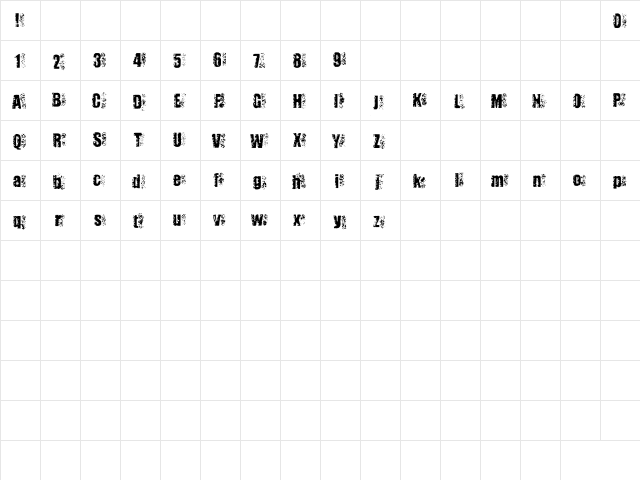
stamped out Regular
Design Context for stamped out Typeface
stamped out has the rough pragmatism of spray-painted stencil signage, adding a raw, street-level authenticity to designs.
A strong choice for packaging that needs edge, warehouse aesthetics, and rough-and-ready visual identities.
Pro Tip: Use stamped out at large sizes on packaging, posters, or apparel where the stencil cutaways read clearly. Avoid small sizes where those gaps become visual noise.